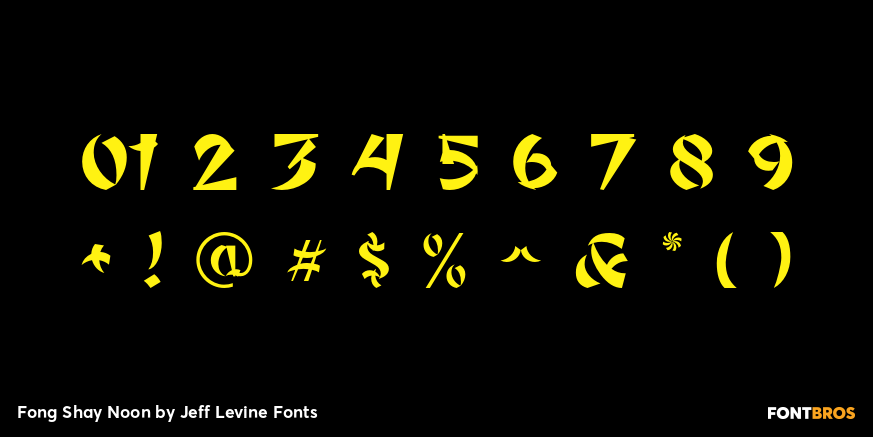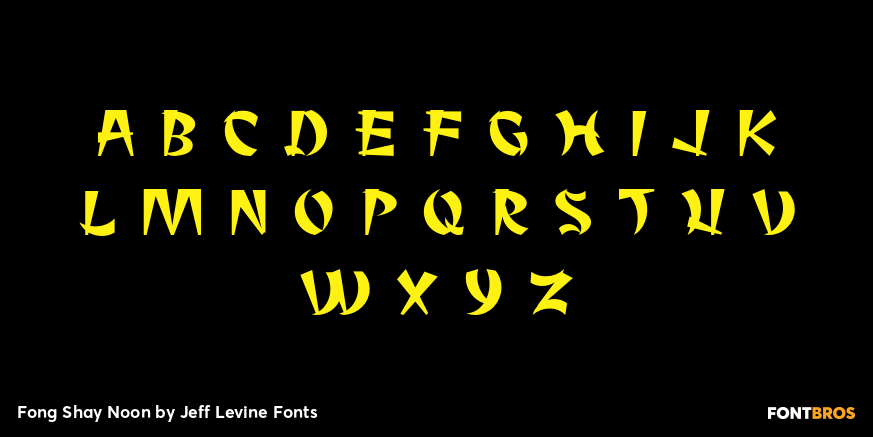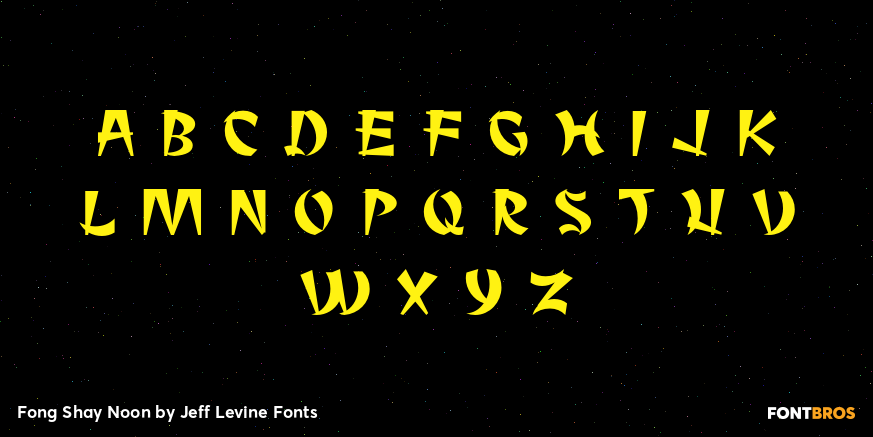
Fong Shay Noon
Fong Shay Noon JNL is a non-traditional approach to an Oriental-styled font as there are some letter forms with curves and others with straight lines.
The name derives from a Chinese restaurant in North Miami Beach, Florida during the 1960s, which in turn took its name from a play on a Yiddish phrase.
Fong Shay Noon JNL Regular by Jeff Levine Fonts